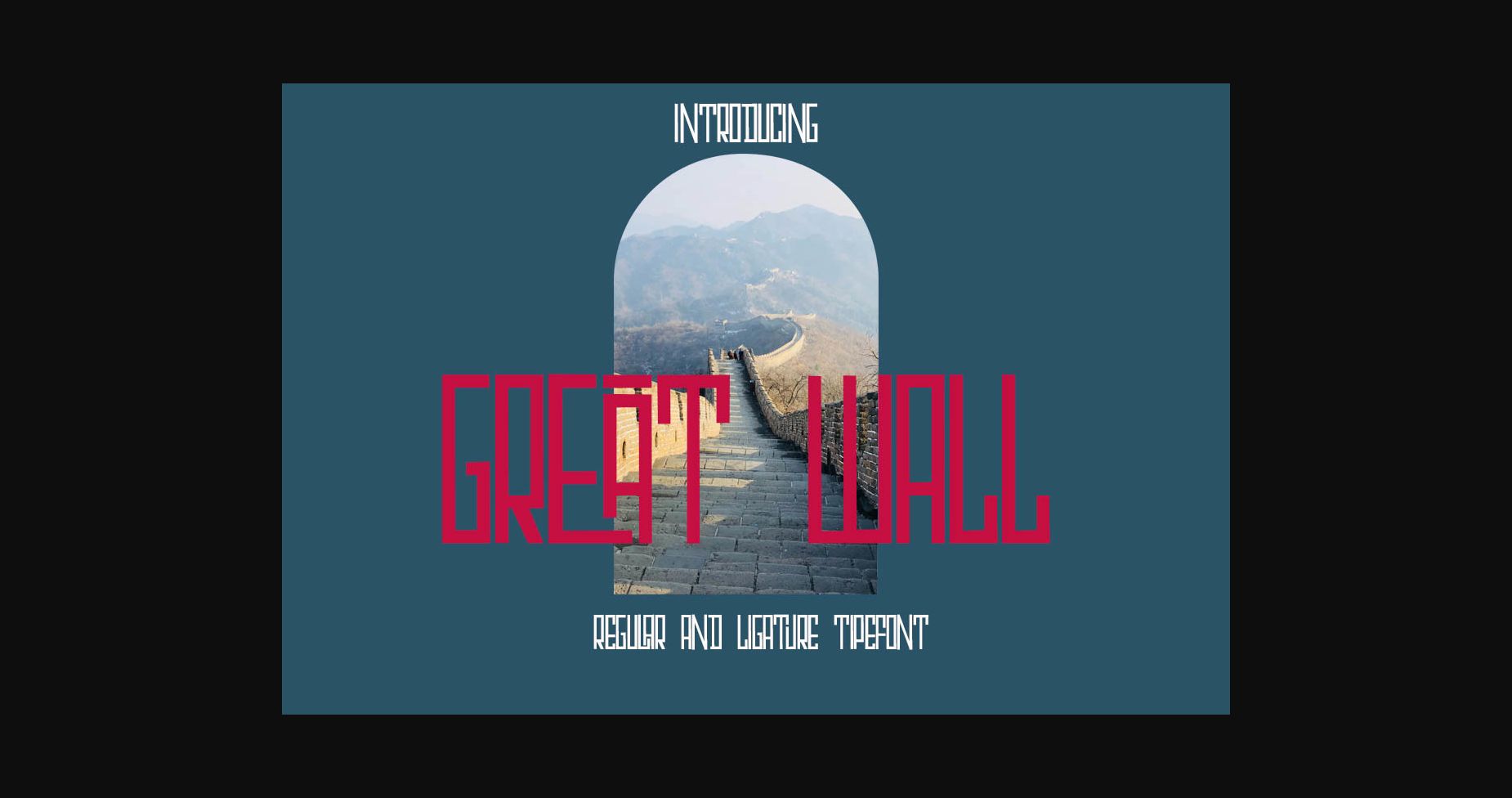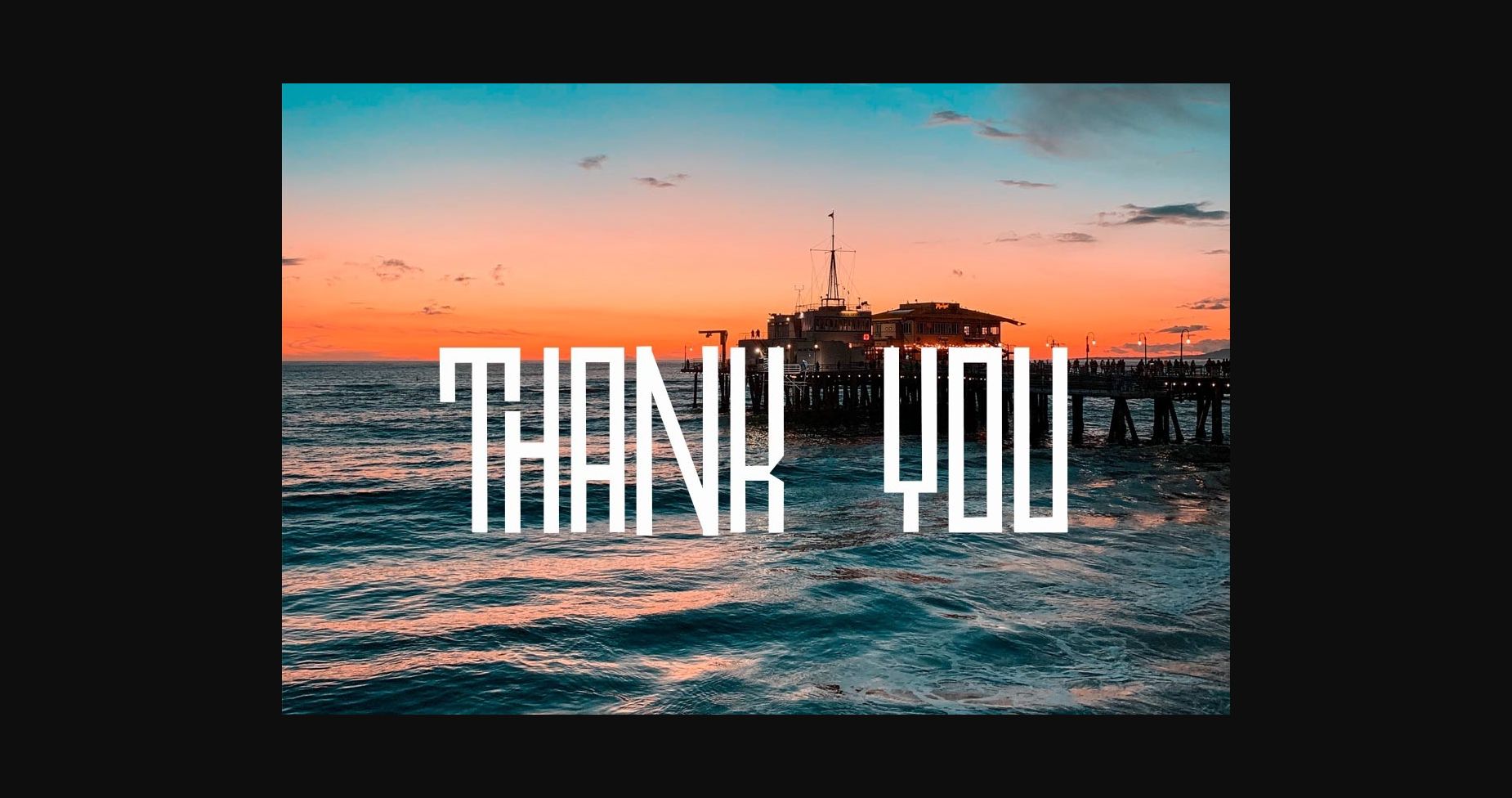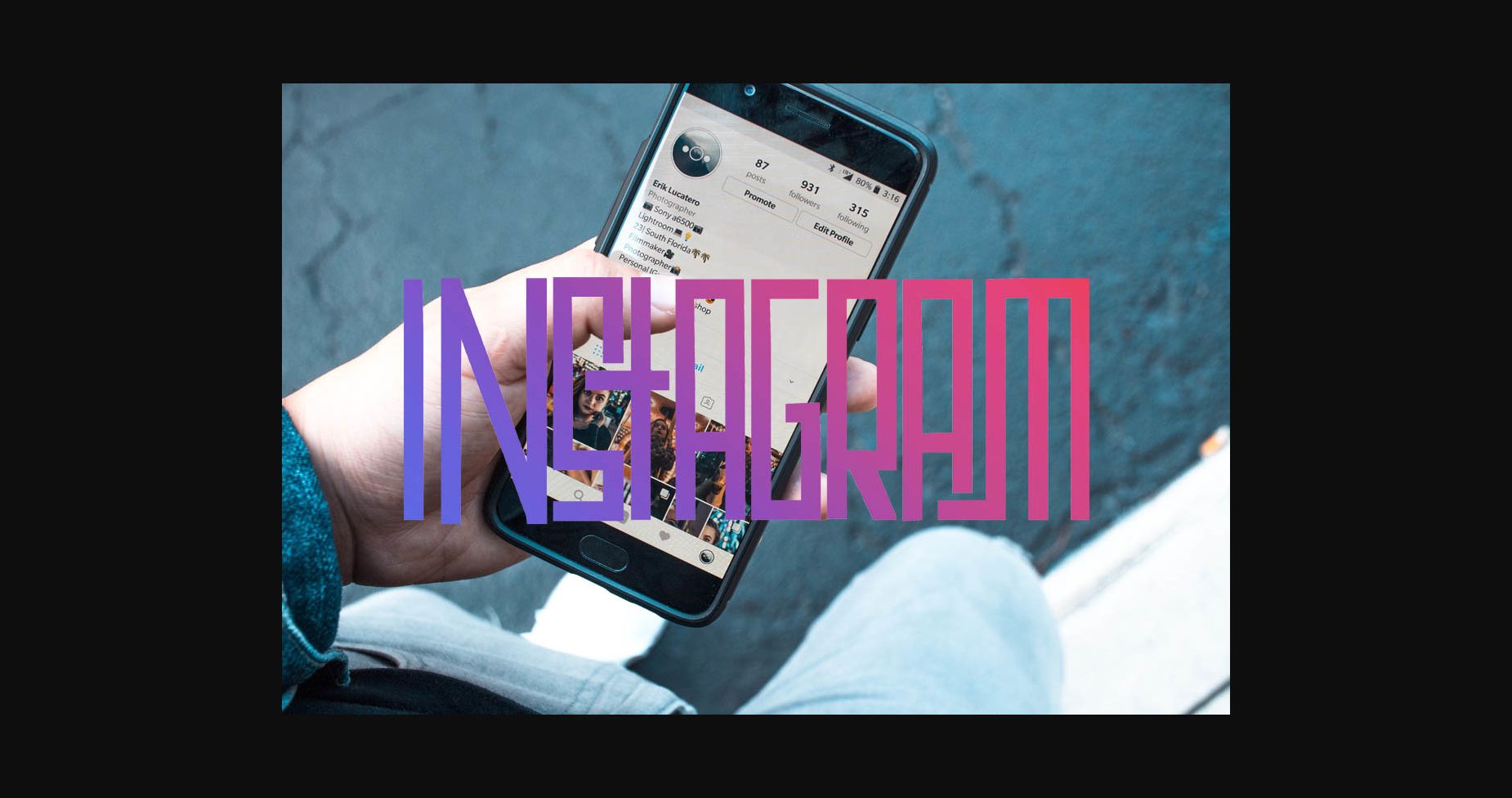
About Great Wall Font
Great Wall is a well-balanced and contemporary sans serif font with a fancy, playful, and unique style. It has moderate contrast that makes it perfect for branding projects, logos, advertisements, product packaging, labels, and so much more! This font is PUA encoded, which means you can access all of the glyphs and swashes with ease!